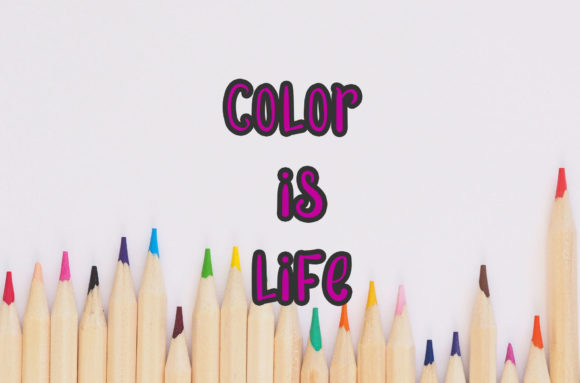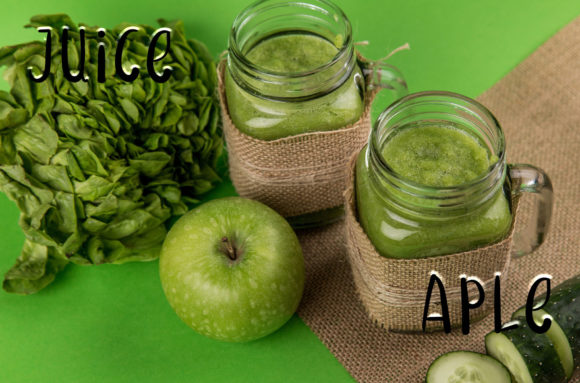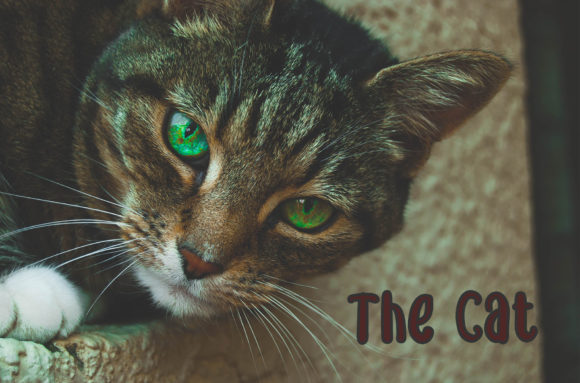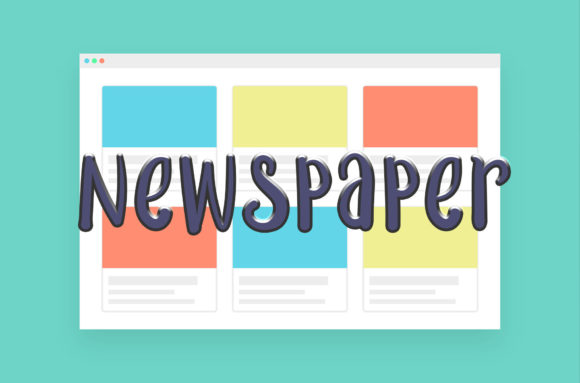
Haters Font: The Playful and Versatile Display Font for Creative Designs
Are you tired of using the same old fonts for your designs? Look no further than Haters Font, a playful and thick-lettered display font that’s sure to bring a touch of personality to your creative projects. With its cute and friendly characters, Haters Font is the perfect addition to any designer’s toolkit.
What is Haters Font?
Haters Font is a unique and versatile display font that’s designed to make your designs stand out. Its thick, bold letters are perfect for creating eye-catching headlines, titles, and captions, while its playful and friendly characters add a touch of whimsy to any design. Whether you’re working on a logo, a poster, or a social media graphic, Haters Font is the perfect choice.
Key Features of Haters Font
- Playful and thick-lettered design: Haters Font features thick, bold letters that are perfect for creating eye-catching headlines and titles.
- Cute and friendly characters: The font’s playful characters add a touch of whimsy to any design, making it perfect for projects that require a bit of personality.
- Versatile and unique: Haters Font is a one-of-a-kind font that’s perfect for a wide range of designs, from logos and posters to social media graphics and more.
Why Use Haters Font?
So why should you use Haters Font for your designs? Here are just a few reasons:
- Adds personality to your designs: Haters Font’s playful and friendly characters add a touch of personality to any design, making it perfect for projects that require a bit of flair.
- Perfect for creative projects: Whether you’re working on a logo, a poster, or a social media graphic, Haters Font is the perfect choice for creative projects that require a unique and eye-catching font.
- Easy to read: Despite its bold and playful design, Haters Font is easy to read, making it perfect for designs that require a clear and concise message.
How to Use Haters Font
Using Haters Font is easy! Here are a few tips for incorporating it into your designs:
- Use it for headlines and titles: Haters Font is perfect for creating eye-catching headlines and titles that are sure to grab attention.
- Pair it with other fonts: Haters Font pairs well with a variety of other fonts, making it easy to create unique and interesting combinations.
- Experiment with different colors and textures: Haters Font looks great in a variety of colors and textures, so don’t be afraid to experiment and find the perfect look for your design.
Who is Haters Font for?
Haters Font is perfect for designers and crafters who are looking for a unique and versatile font to add to their toolkit. Whether you’re a professional designer or a DIY crafter, Haters Font is a great choice for anyone who wants to create eye-catching and creative designs.
- Designers: Haters Font is perfect for designers who are looking for a unique and eye-catching font to use in their designs.
- Crafters: Haters Font is also great for crafters who are looking for a fun and playful font to use in their DIY projects.
- Small business owners: Haters Font is a great choice for small business owners who are looking for a unique and professional font to use in their branding and marketing materials.
In conclusion, Haters Font is a playful and versatile display font that’s perfect for designers and crafters who are looking for a unique and eye-catching font to add to their toolkit. With its thick, bold letters and cute and friendly characters, Haters Font is sure to bring a touch of personality to any design. So why not give it a try and see how it can make your designs come alive?